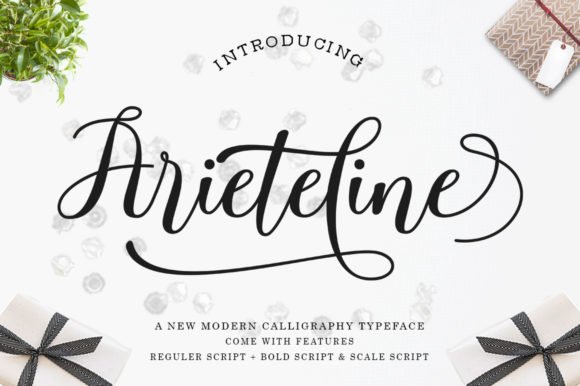
The Art of Elegant Typography: Unveiling the Ariteline Script Font
Have you ever found yourself lost in a world of creativity, where the lines between reality and imagination blur, and all that’s left is the thrill of bringing a new idea to life? That’s exactly where I was when I first laid eyes on the Ariteline Script Font. Its beautiful calligraphy design and bold swashes immediately captured my heart, and I knew I had to learn more.
The Ariteline Script Font is a stunning calligraphy design that comes in both a regular and an italic version, making it the perfect addition to any designer’s toolkit. Whether you’re a seasoned pro or just starting out, this font is a valuable asset that can elevate your designs and take them to the next level. With its elegant and sophisticated style, the Ariteline Script Font is sure to leave a lasting impression on your audience.
- Unique Characteristics: Ariteline Script Font features a unique blend of elegant and modern script styles, making it perfect for creating eye-catching headlines, titles, and other text elements that require a touch of sophistication and flair.
Ariteline Script Font Review
I’ve had the chance to play around with the Ariteline Script Font, and I must say it’s a unique addition to any design project. ✨ One thing that stands out is its elegant, handwritten feel, making it perfect for creating a sense of warmth and personality in your design. The font is highly customizable, allowing you to adjust the weight, spacing, and other properties to suit your needs.
Another advantage is that the Ariteline Script Font is incredibly versatile, suitable for a wide range of applications, from headings to body text. It also looks great in both print and digital formats.
While the Ariteline Script Font is a great addition to any design arsenal, there are some limitations to be aware of:
- ⚠️ Limited character set: The font only includes a limited set of characters, which may not be sufficient for more complex design projects.
- ⚠️ Limited language support: The font may not support all languages, which could be a problem for international design projects.
- ⚠️ May require additional styling: Depending on the design project, you may need to add additional styling or effects to make the font work effectively.
Overall, the Ariteline Script Font is a solid choice for designers looking to add a touch of elegance and personality to their projects. While it may have some limitations, its unique feel and high customizability make it a great addition to any design arsenal.
Ariteline Script Font is ideal for creating elegant and sophisticated designs. It’s perfect for headings, titles, and other text elements that require a touch of sophistication. To get the most out of this font, use it sparingly and in combination with other fonts to create a visually appealing design. You can also experiment with different font sizes, colors, and styles to create a unique look.